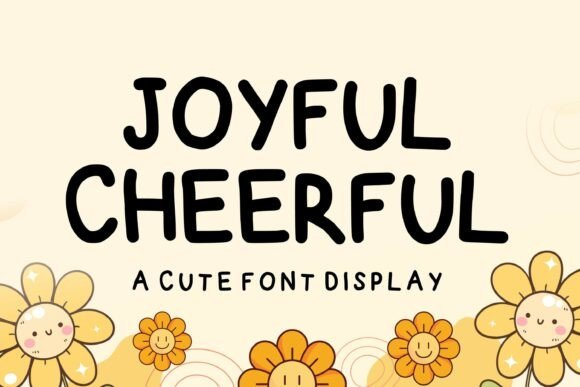
Introduction to Joyful Cheerful Font
Joyful Cheerful is a playful and cute handwritten display font designed to bring warmth and happiness to your creative projects.
With its rounded shapes and friendly character, this font is perfect for kids-themed designs, greeting cards, branding, posters, and social media content Its fun and cheerful style makes it ideal for adding a lighthearted and joyful touch to any design.